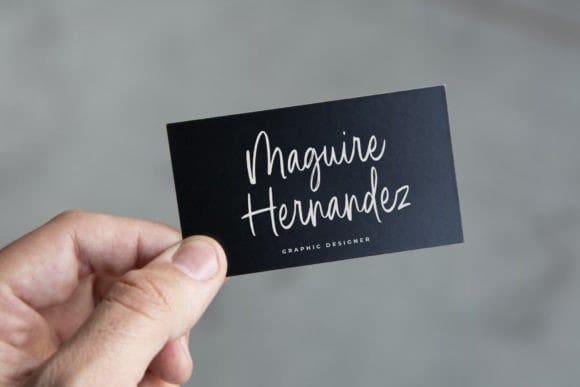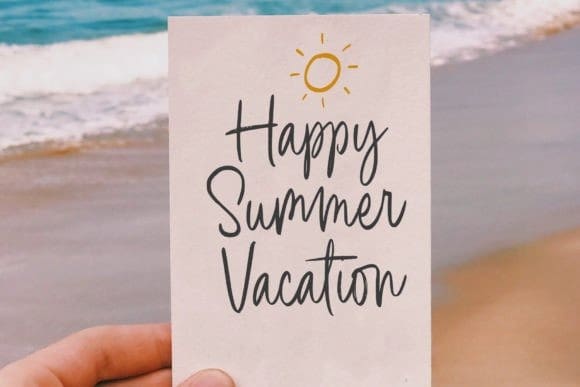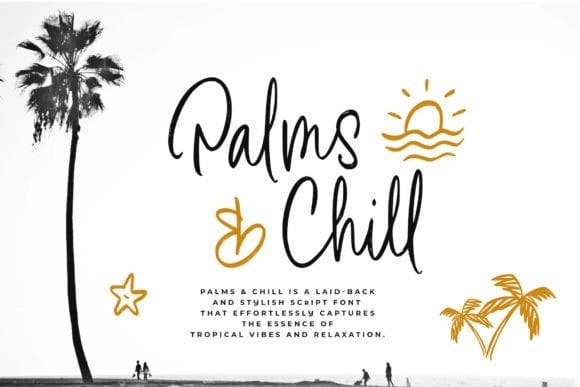
Palms & Chill Font
Palms & Chill Font is a laid-back and stylish script font that effortlessly captures the essence of tropical vibes and relaxation. With its fluid strokes and casual letterforms, this font transports your designs to a sun-soaked paradise, making it the perfect choice for projects that exude a carefree and easygoing aesthetic.
Inspired by the leisurely swaying of palm trees and the warmth of a tropical breeze, Palm & Chill is an invitation to infuse your designs with a touch of coastal charm. Its versatility makes it suitable for a range of applications, from beach party invitations to vacation-themed branding and social media graphics.
The breezy, handwritten quality of Palm & Chill adds a personal touch to your designs, making them feel approachable and inviting. Whether you’re creating logos for beachside cafes or designing laid-back apparel, this font brings a sense of relaxed sophistication to your projects.
Embrace the chill vibes of Palm & Chill script font and let your creativity flow as you craft designs that transport your audience to a world where every day feels like a beach day.”